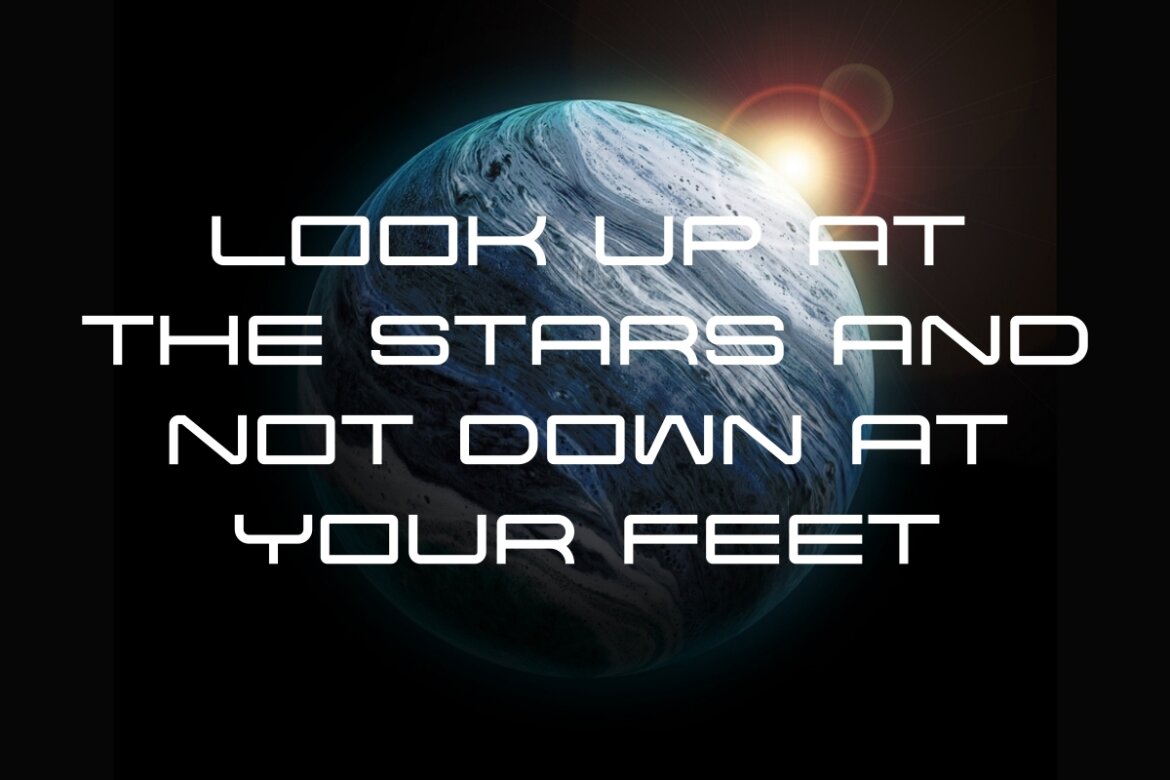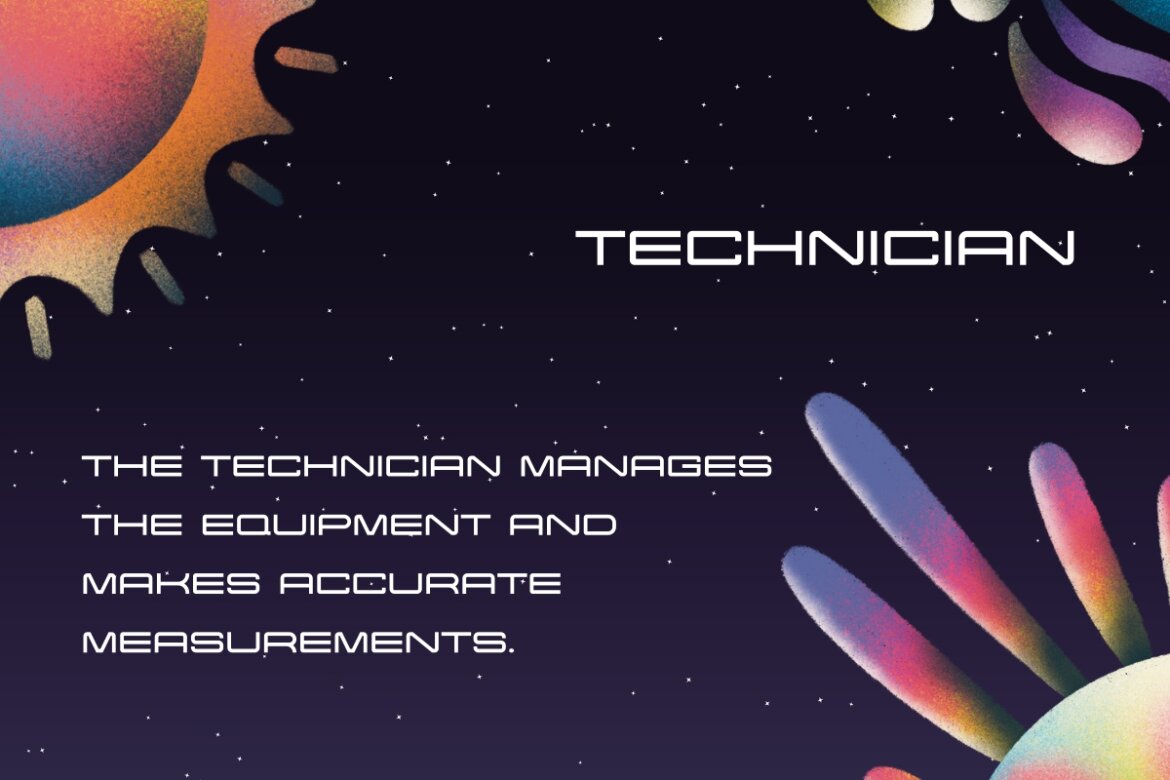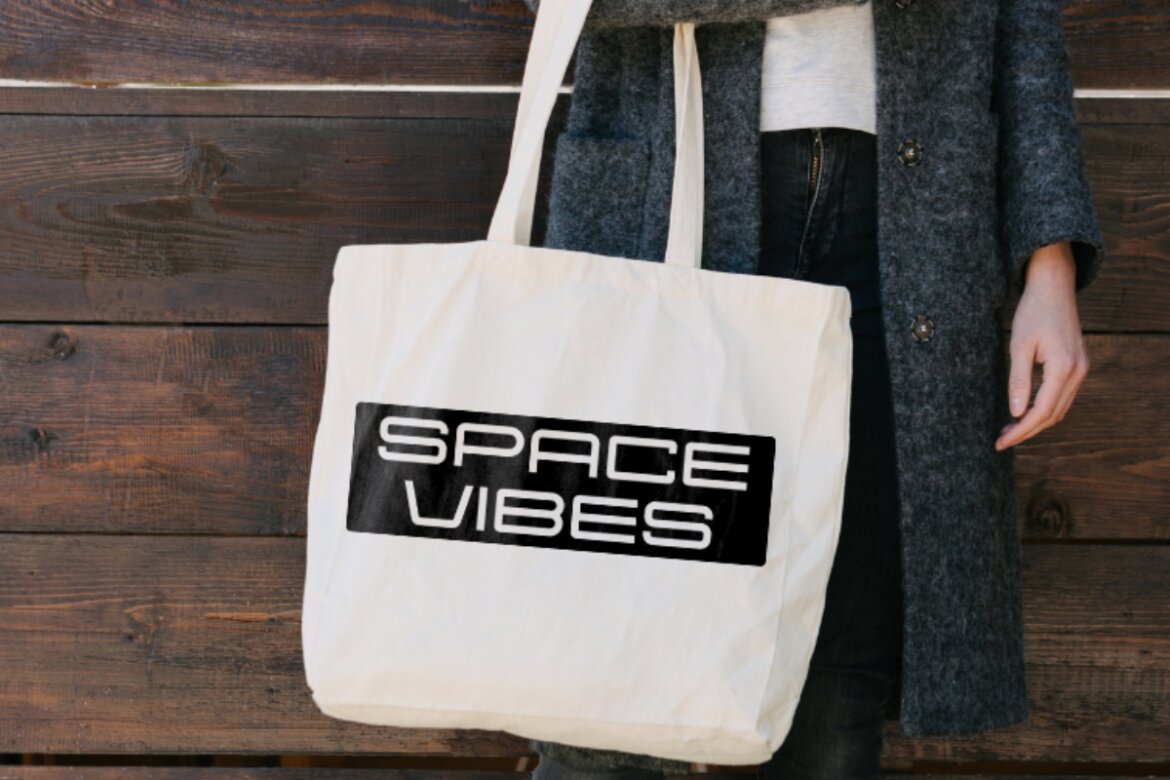
Solar System - Futuristic FREE Font
Solar System
Solar System is a sophisticated and sleek futuristic display font, perfect for projects orbiting around science, technology, and space. Its wide, geometric, all-caps letterforms feature distinct, modern cuts and wide spacing, creating a clean, high-tech, and minimal aesthetic. This typeface is highly effective for branding, headlines, user interfaces (UI/UX), gaming, and marketing materials that need to convey precision, innovation, and a sense of the vast, unknown future. Solar System is your go-to font for designs that require a polished, authoritative, and truly contemporary sci-fi look.
• high-tech authority: instantly projects a sophisticated and professional futuristic brand image.
• minimalist impact: achieves a strong presence using clean lines and a contemporary, non-cluttered style.
• optimal ui clarity: clean, wide geometry ensures excellent legibility in digital interfaces and screens.
• versatile sci-fi use: perfect for gaming, movie titles, and all technology-driven visual content.